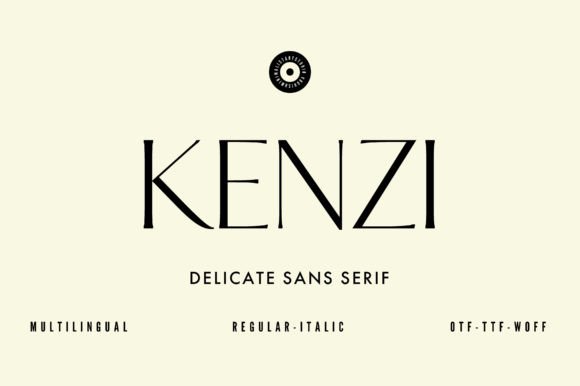
Welcome to the world of possibilities with 'Kenzi', the font that breathes life into your designs. 'Kenzi', with its delicate stroke and precision, has a charm that captivates and engages. Its meticulously crafted characters, reminiscent of a gentle breeze, infuse your creations with a graceful elegance that will leave your audience mesmerized.
Experience the beauty of minimalism with 'Kenzi'. Its clean lines and balanced proportions create a visual harmony that is both pleasing to the eye and irresistibly inviting. Whether you're designing logos, branding, or editorial layouts, 'Kenzi' adds a touch of refinement that elevates your work to new heights.
Dive into a world of versatility with 'Kenzi'. It's not just a font; it's a palette of possibilities. Its adaptability knows no bounds, allowing you to effortlessly switch between styles and moods. From classic and timeless to quirky and unconventional, 'Kenzi' effortlessly adapts to your vision, becoming an extension of your creativity.
With 'Kenzi', legibility takes center stage. Its carefully designed characters ensure that your message is crystal clear, leaving no room for misinterpretation. Whether you're crafting headlines, body text, or marketing materials, 'Kenzi' ensures your words are delivered with impact and clarity.
'Kenzi' isn't just a font; it's an investment in your creativity. It's a font that grows with you, adapting to your evolving style and expanding horizons. As your design journey unfolds, 'Kenzi' will remain your steadfast companion, ready to bring your visions to life with timeless elegance and unwavering versatility.
Discover the limitless potential of 'Kenzi' today and embark on a creative odyssey that will redefine your design horizons. Let 'Kenzi' be the font that captures the essence of your ideas and transforms them into unforgettable masterpieces.